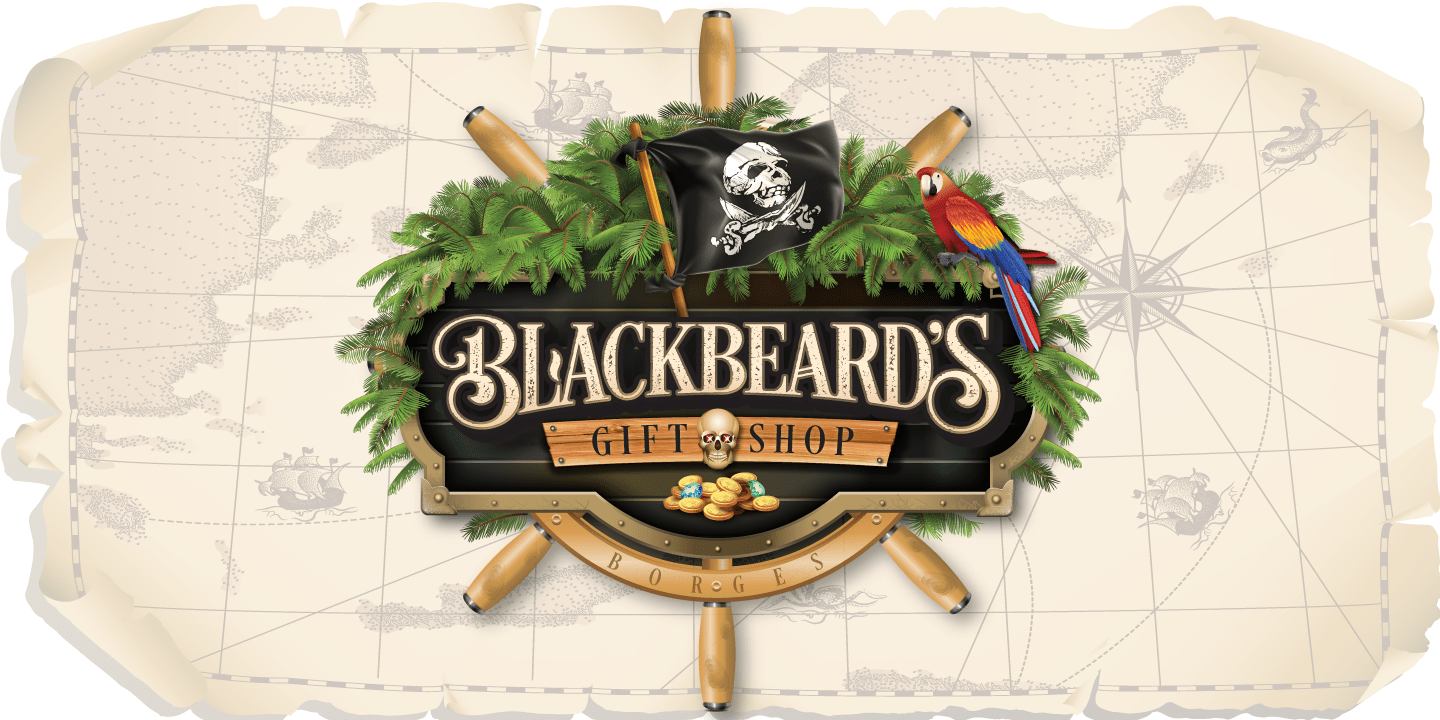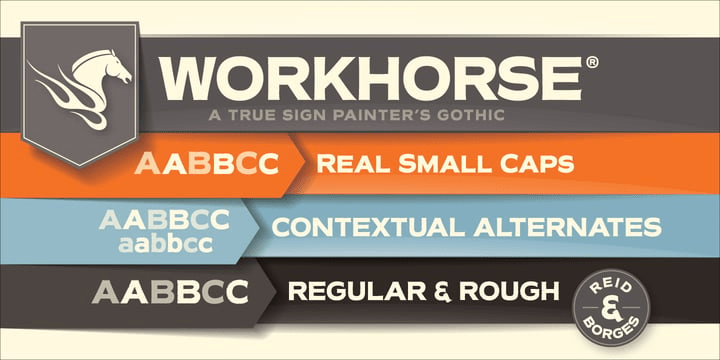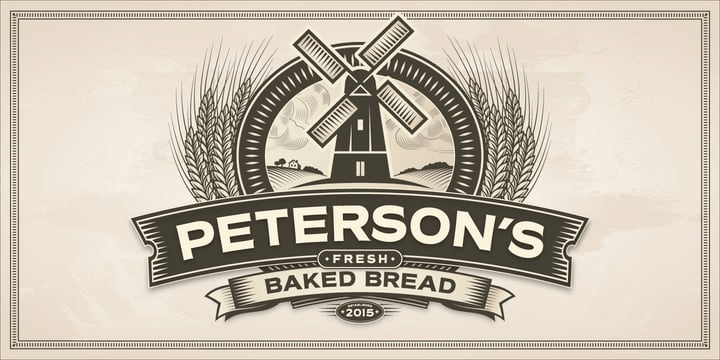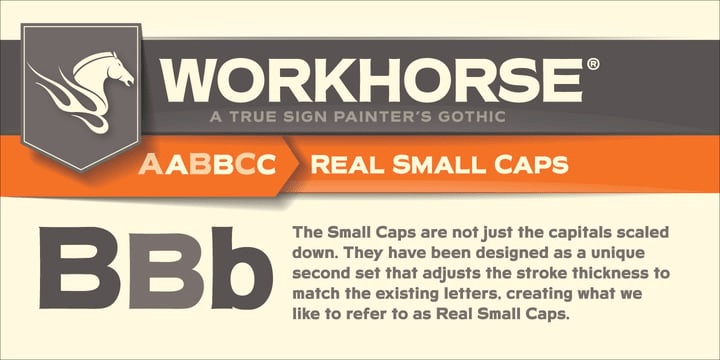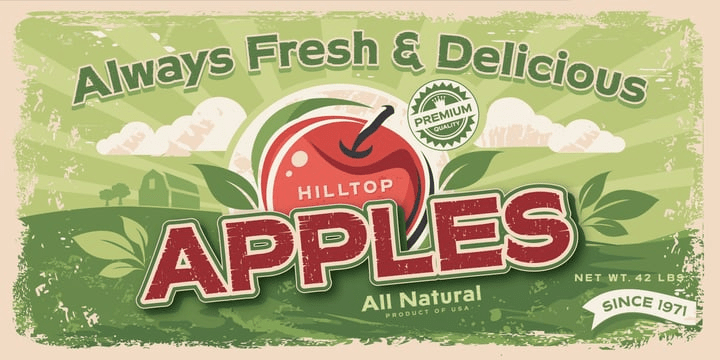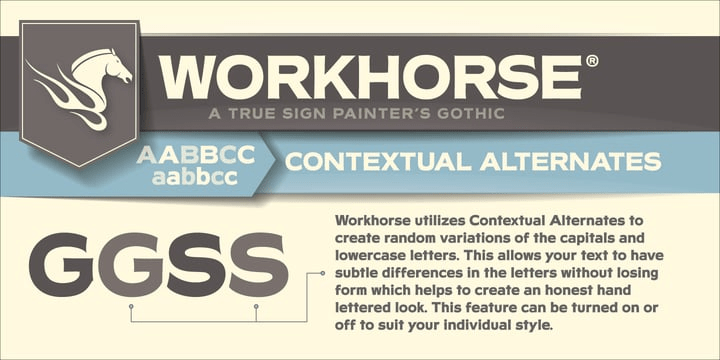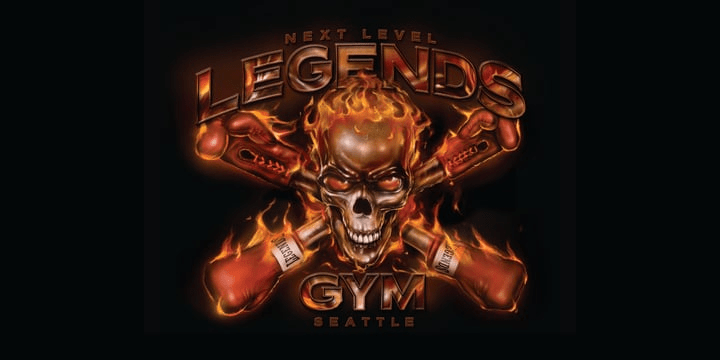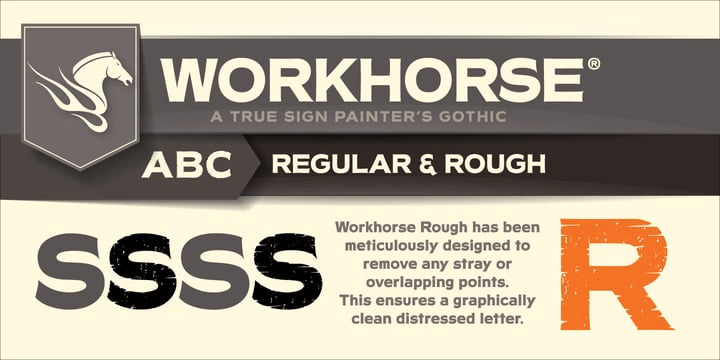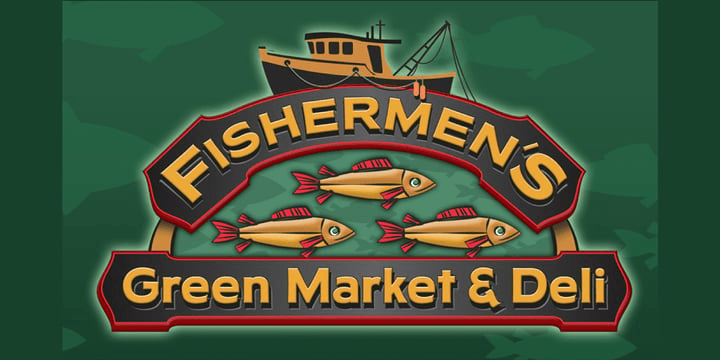
Workhorse
Buy NowWorkhorse is a Sign Painter's Gothic developed by Master Sign Painter Greg Reid. Workhorse captures the true essence of hand lettering. From the tapered waists to the elegant snaps of the brush; these elements present a warmth unseen in today's mechanically stiff Gothics. Greg Reid and Charles Borges de Oliveira collaborated to bring this truly one of a kind typeface to fruition. With the power of Open type, Workhorse utilizes Contextual Alternates to create random variations of the capitals and lowercase letters. This allows your text to have subtle differences in the letters without losing form which helps to create an honest hand lettered look. This feature can be turned on or off to suit your individual style. You also have the ability to manually choose the glyph variations from the glyph pallet to help you create one of kind designs. Both versions of Workhorse feature complete variations of the capitals and lowercase letters (56 total), Small Caps and six alternates. The Small Caps are not just the capitals scaled down. They have been designed as a unique second set that adjusts the stroke thickness to match the existing letters, creating what we like to refer to as "Real Small Caps". Workhorse is a timeless classic that can be used from early Americana advertising all the way up to present day modern use. No matter how you use Workhorse it always looks and reads well.